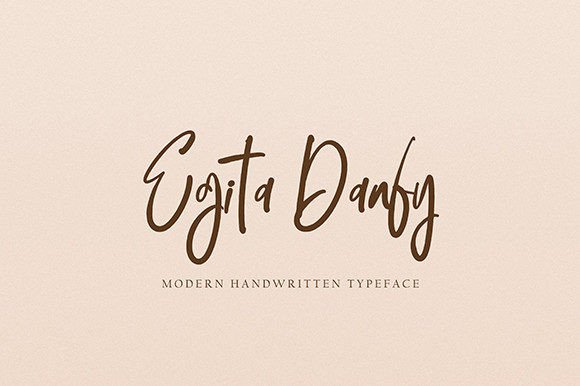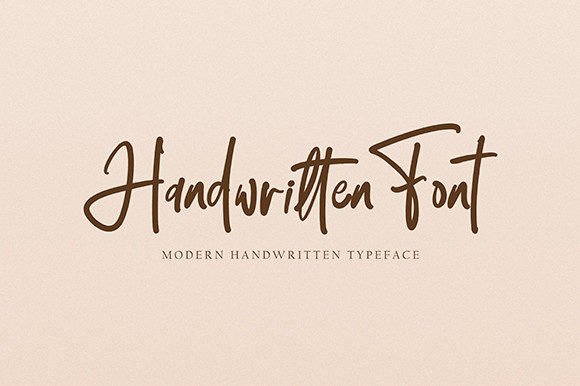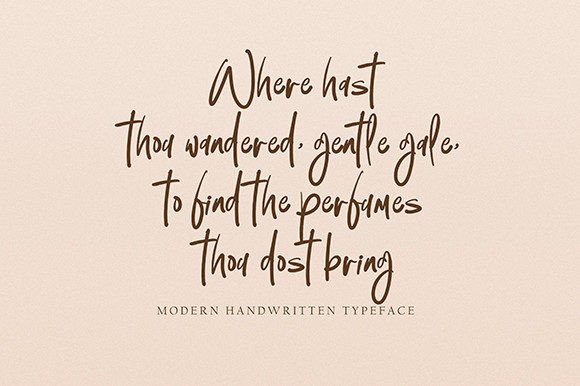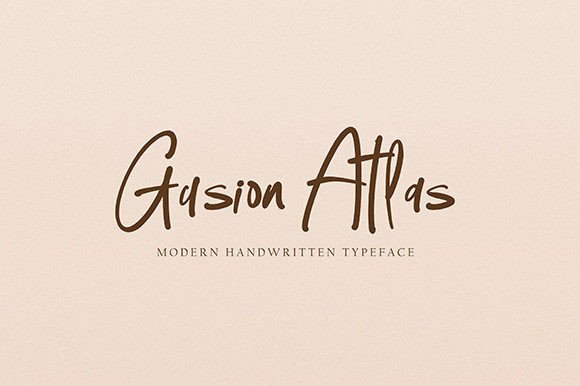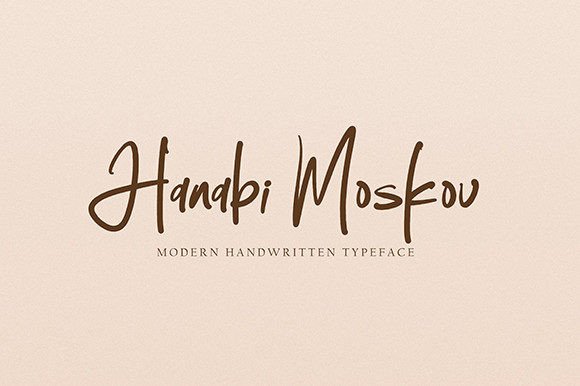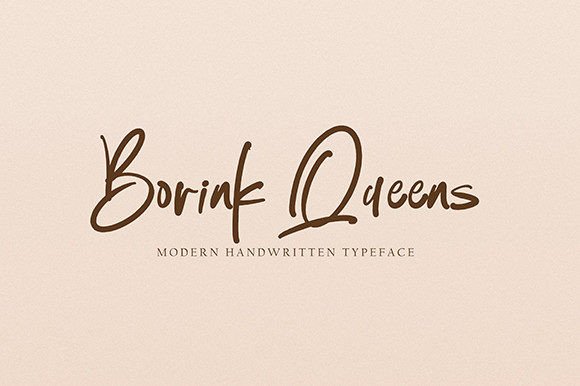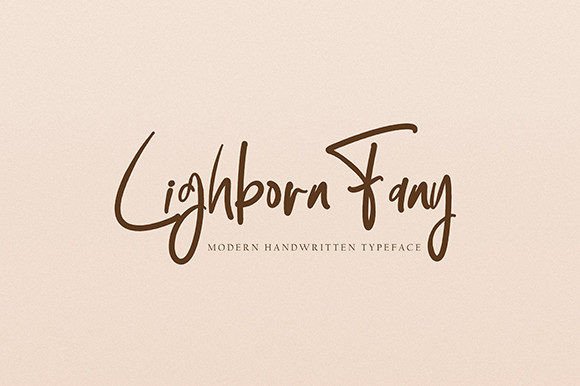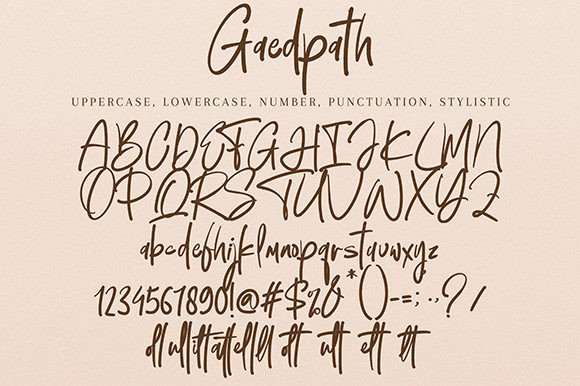
Gaedpath Font
About Gaedpath Font
Gaedpath is not just a font; it’s a dazzling script that brings a level of detail and craftsmanship that can elevate any design. Meticulously crafted with precision and care, Gaedpath is a wonderful asset to your font library, offering versatility and sophistication to enhance any creation.
The script style of Gaedpath is designed to captivate attention with its intricate details. Whether you’re working on branding projects, invitations, product designs, or any other creative endeavor, Gaedpath is crafted to be a font that stands out and adds a touch of dazzle to your text.
One remarkable feature of Gaedpath is its PUA encoding, ensuring that accessing all glyphs and swashes is a seamless and user-friendly experience. This feature not only enhances usability but also provides designers with the freedom to customize and embellish the font, making it a truly versatile tool for creative expression.
Imagine Gaedpath on a luxurious product packaging, where its dazzling script adds a sense of opulence. Picture it on invitations to high-profile events, where the detailed craftsmanship enhances the sophistication of the occasion. Whether applied to digital or print media, Gaedpath is designed to be a font that brings a level of refinement and detail to your designs.
In summary, Gaedpath is not just a font; it’s a dazzling script that goes beyond ordinary typography. With its highly detailed and neatly crafted design, Gaedpath invites you to enhance your creations with a touch of sophistication and allure. Let Gaedpath be the font that turns your designs into dazzling works of art.